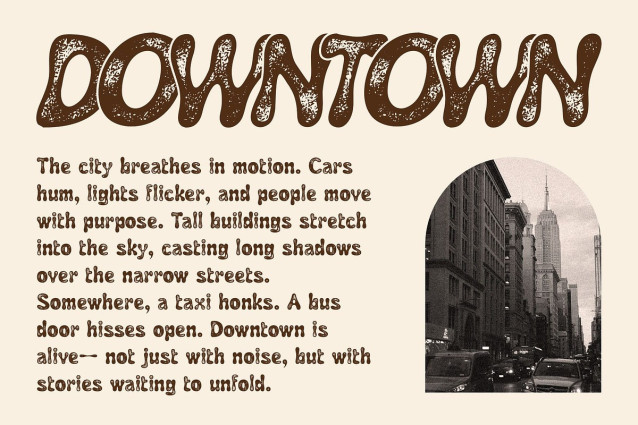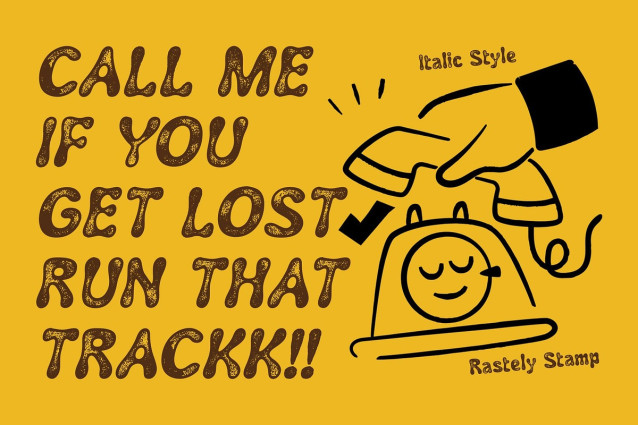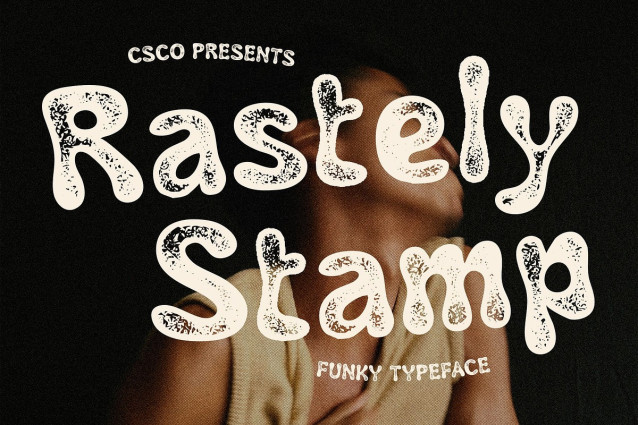
Rastely Stamp Font
Rastely Stamp Font is a display font that brings back the iconic energy of the ’90s retro scene. With its curvy, funky shapes, each letter radiates movement, playfulness, and bold personality, making it perfect for eye-catching headlines and expressive visuals.
Funky Feel with Vintage Flair The font’s groovy form is enhanced by a stamp effect, introducing a textured, raw, and handmade look. This gives it a tactile, nostalgic quality—as if each letter was printed by hand—adding depth and authenticity to any design.
Perfect for Nostalgic and Bold Designs Rastely Stamp is an ideal choice for music posters, vintage-inspired branding, quirky packaging, and creative visuals that aim to stand out with retro charm and joyful expression. Ideal for music posters, retro product packaging, funky editorial layouts, or even brand identities that want to radiate character, Rastely Stamp instantly makes a statement. Its loud yet lovable look makes it a go-to font for any project that needs to feel bold, unconventional, and joyfully expressive.
Retro-Modern Energy for Today’s Creatives Whether you’re channeling 90s funk, indie design aesthetics, or just want a font that’s brimming with personality, Rastely Stamp delivers a look that’s both timeless and trend-forward—full of character, attitude, and unmistakable style.